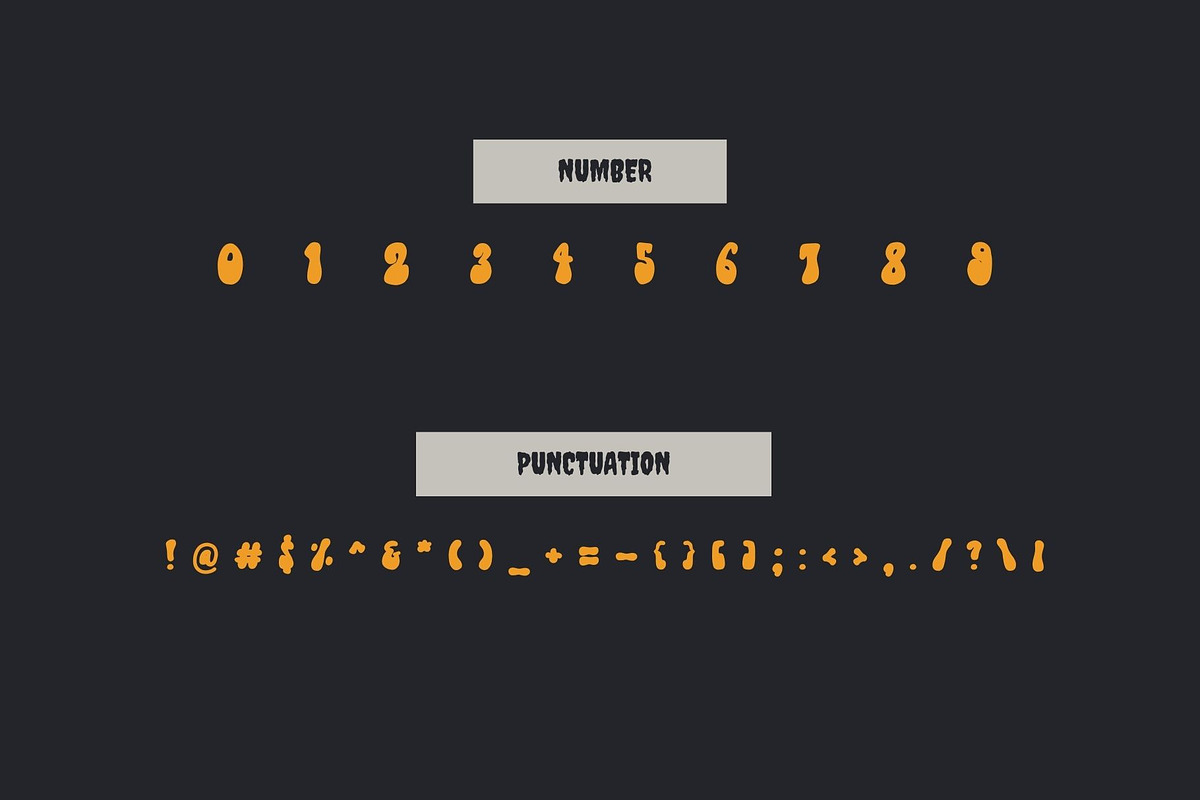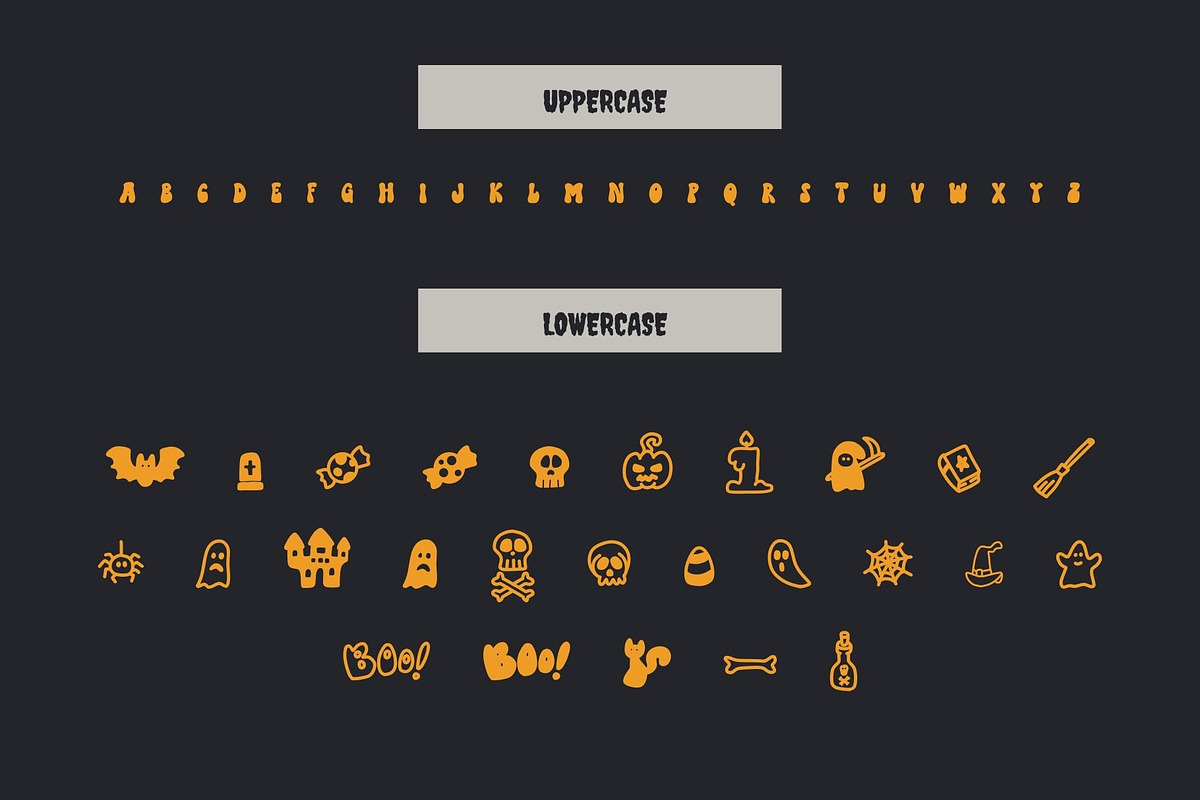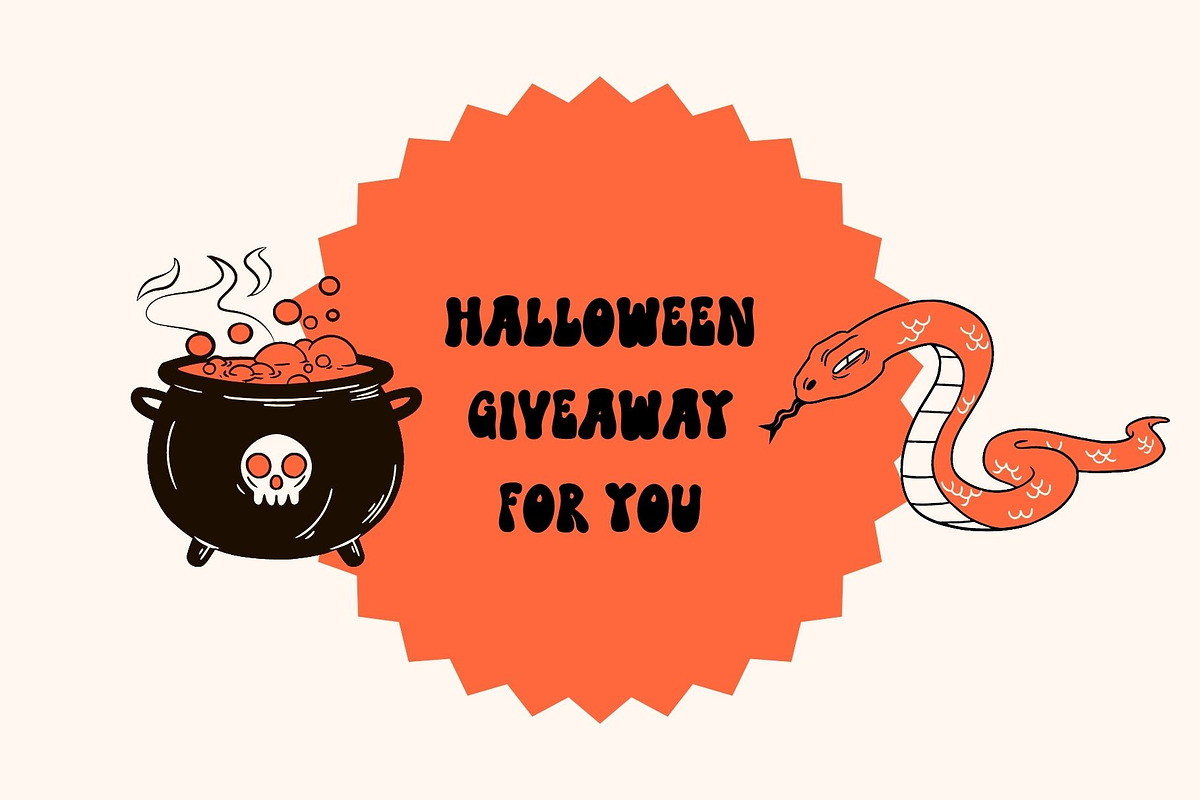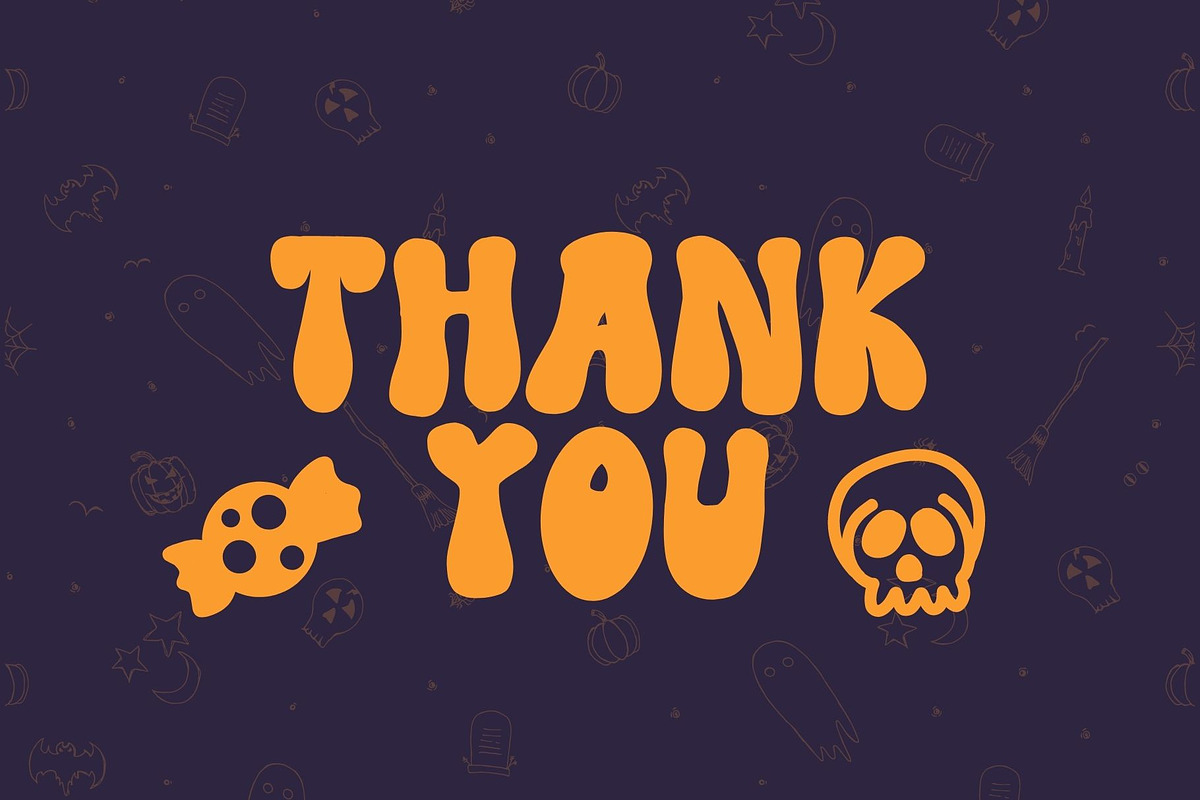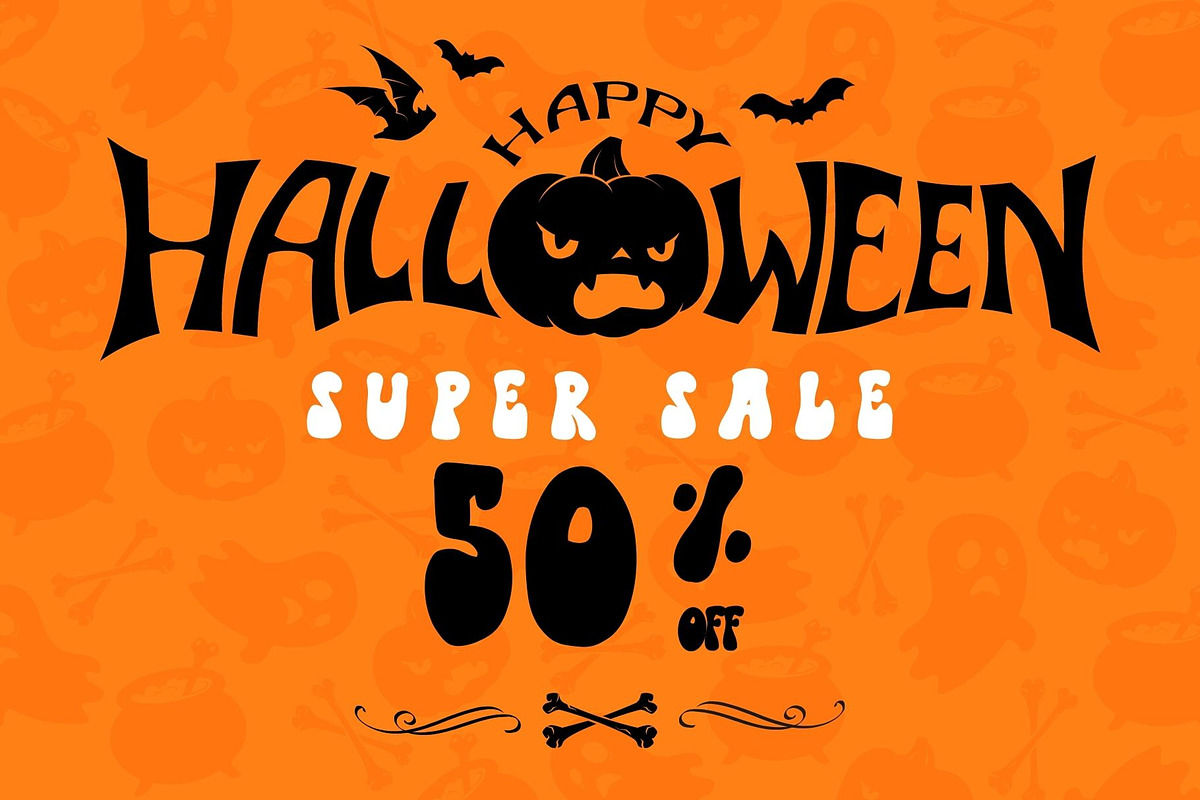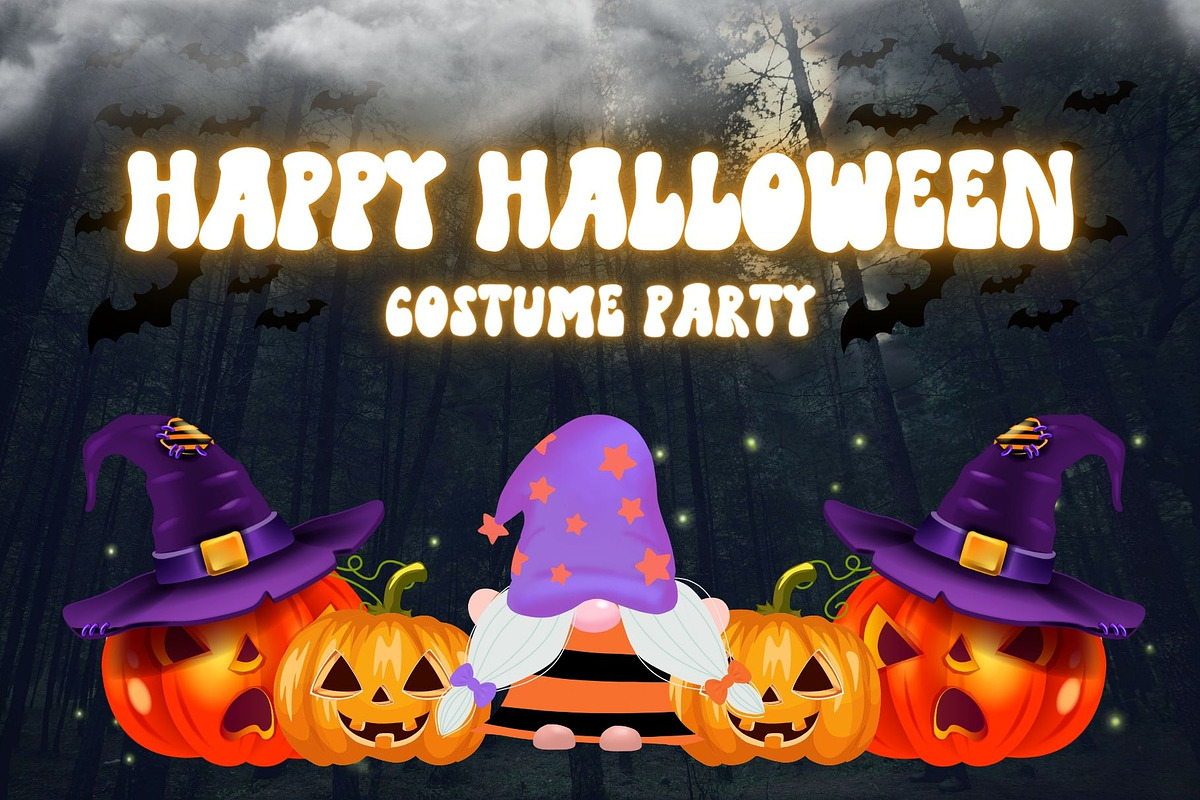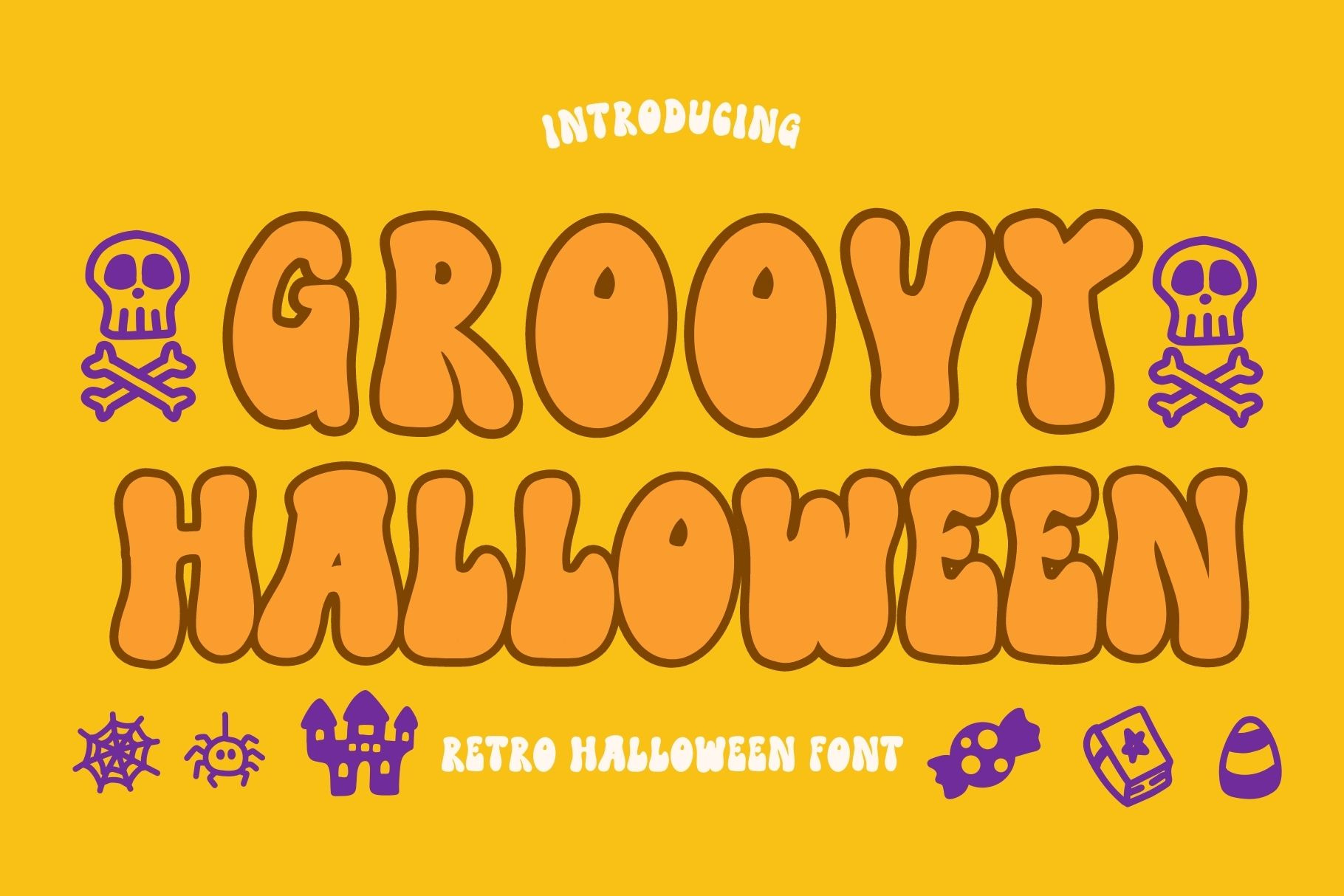
Groovy Halloween - Decorative font
Groovy Halloween is a cool Halloween decorative or display font. The additional elements of blood dripping and bones-like letters make an ambiance of horror Invitations, postcards, posters, and headings for a Halloween event; this font can be used in every setting.